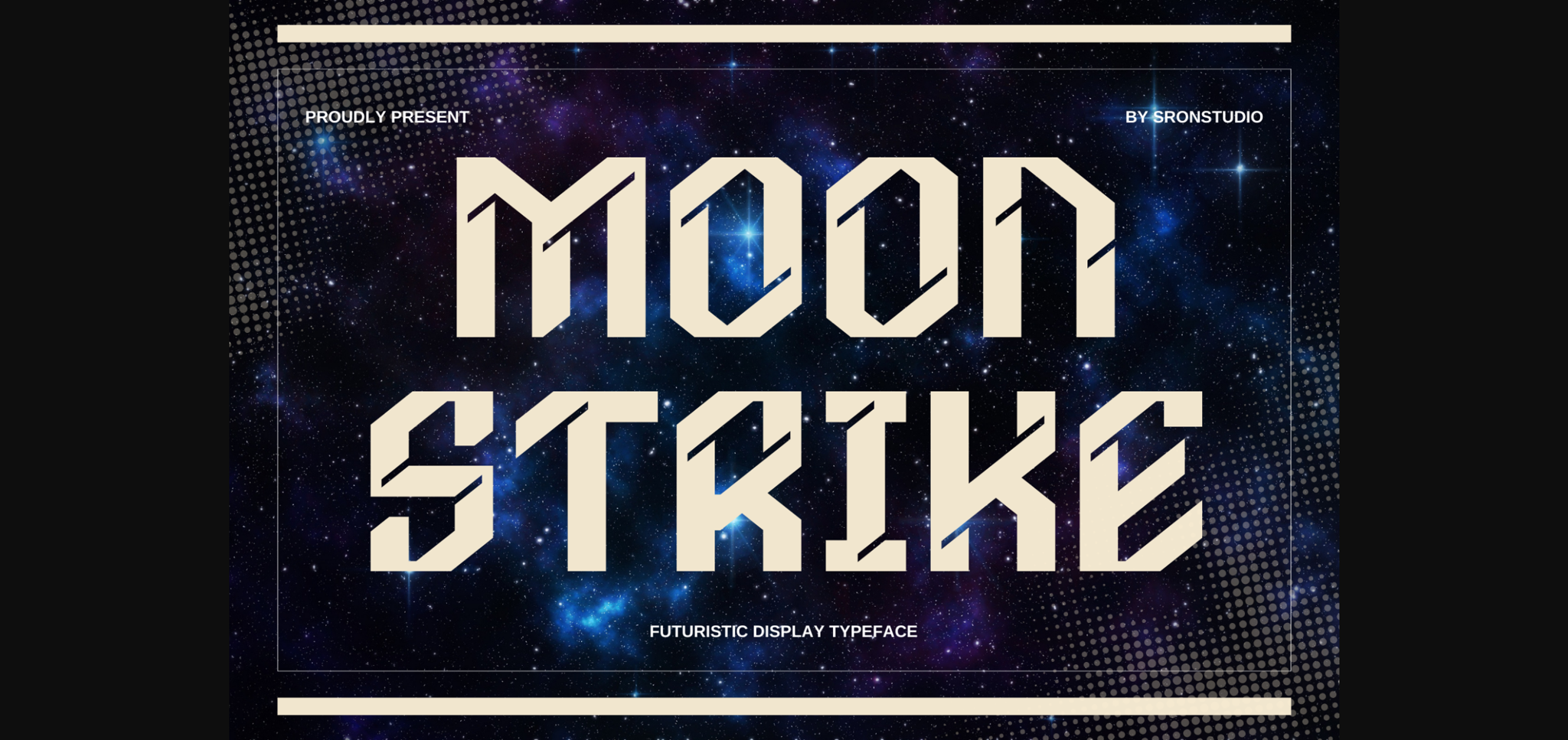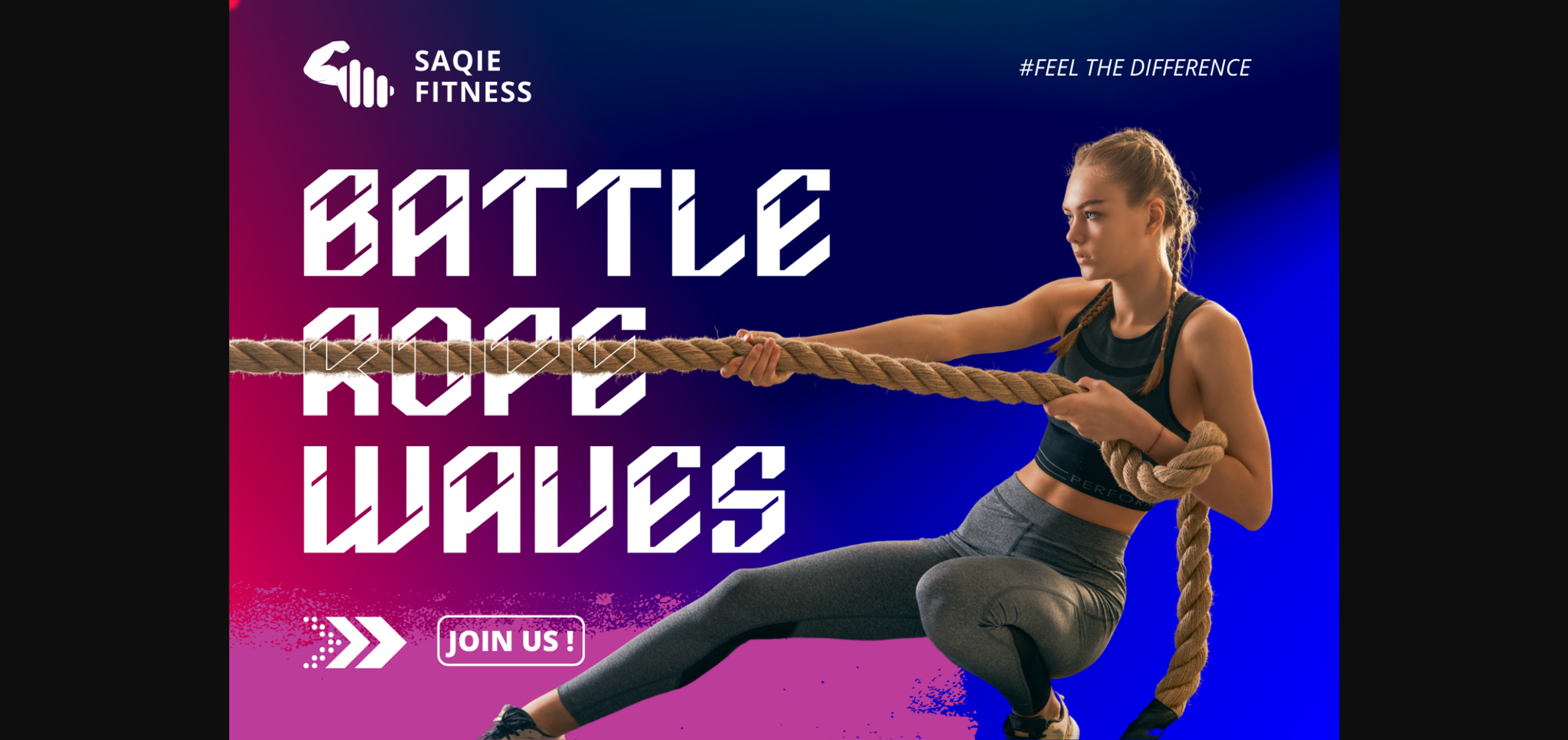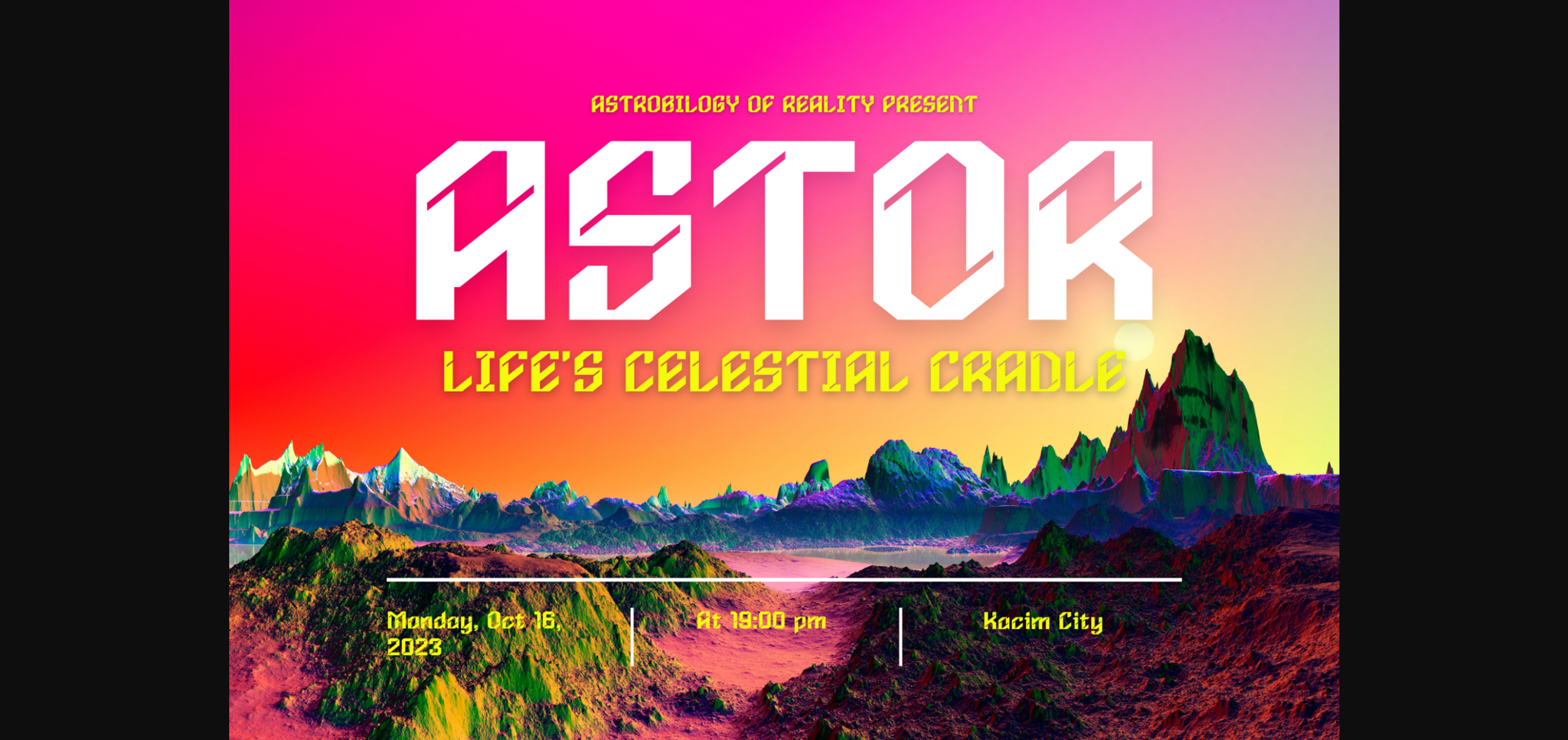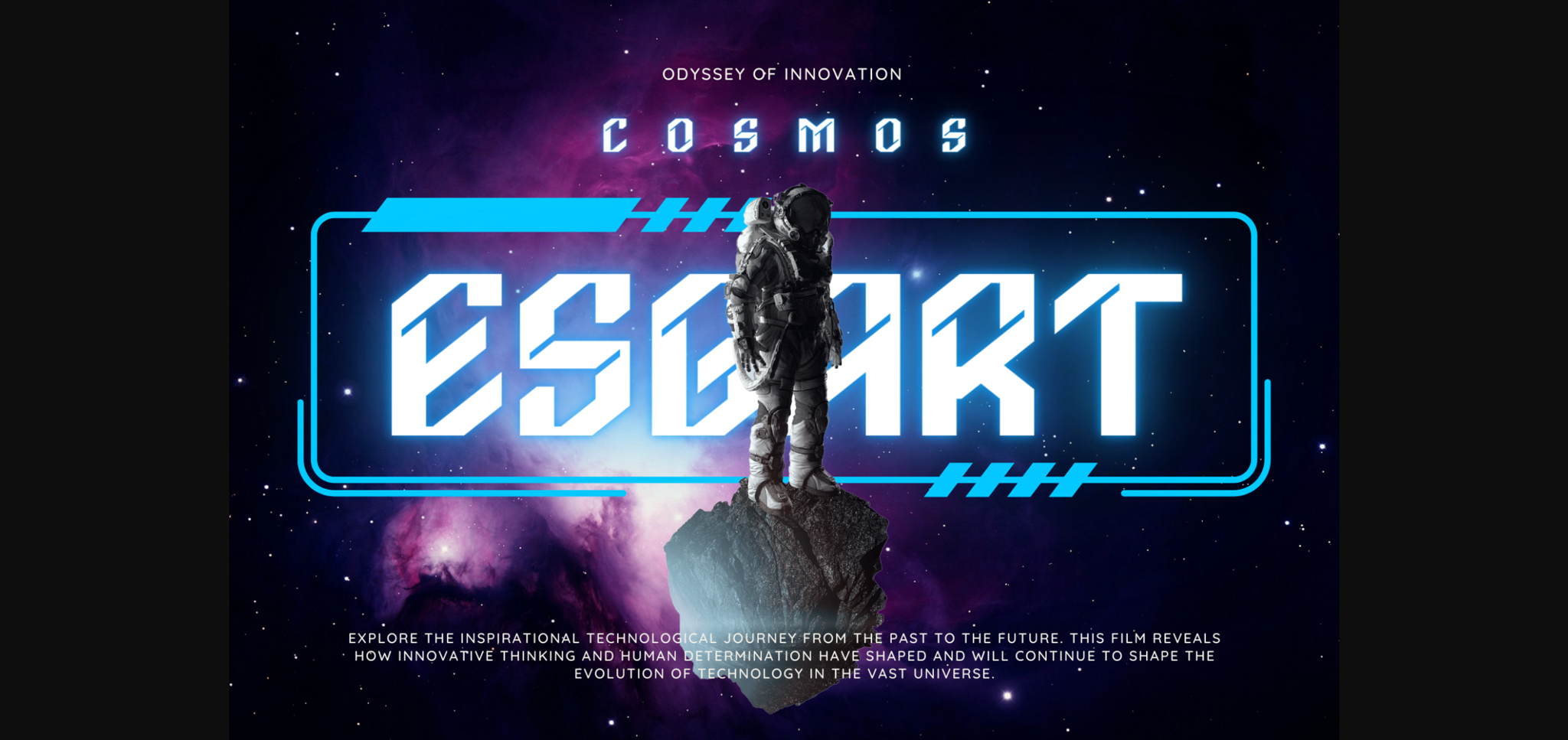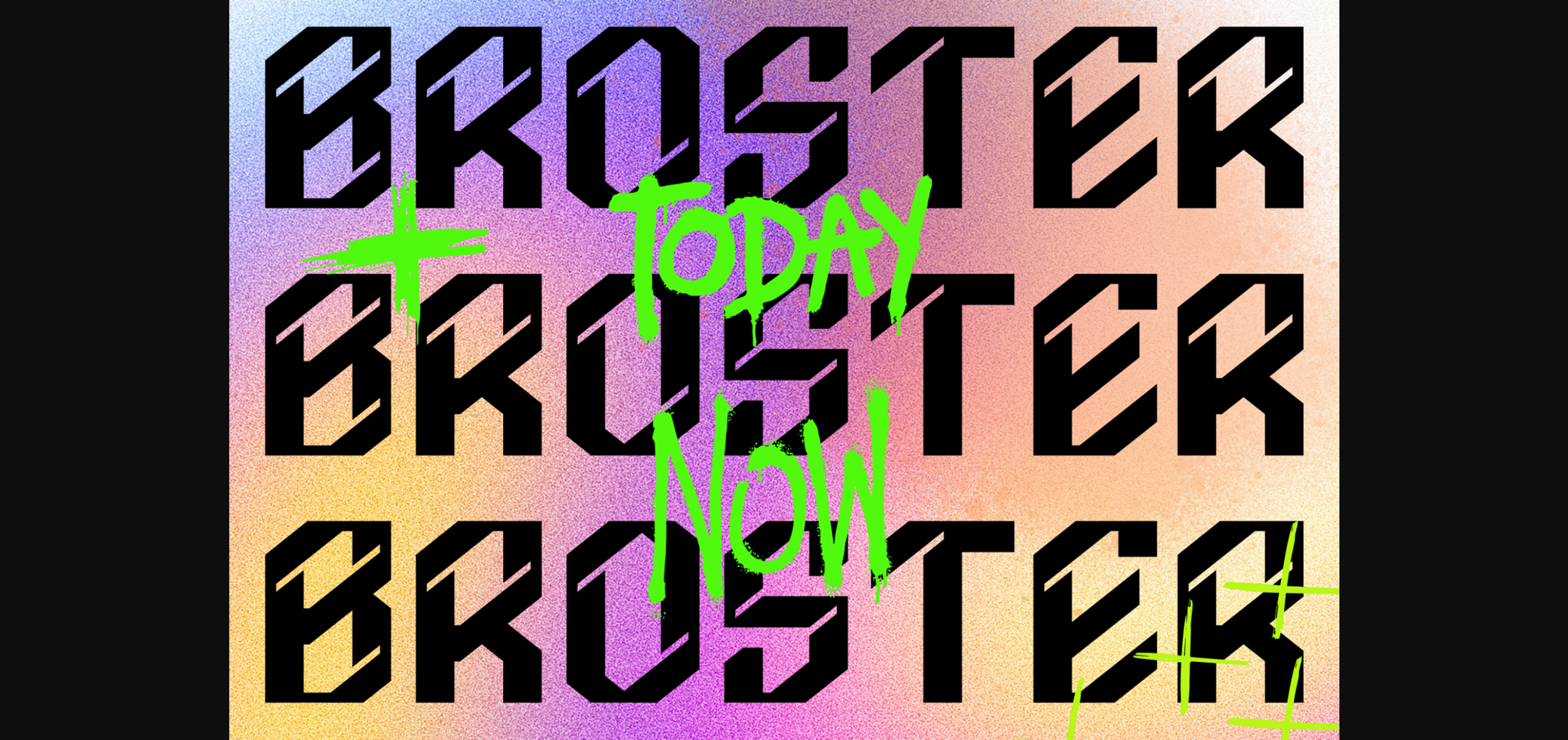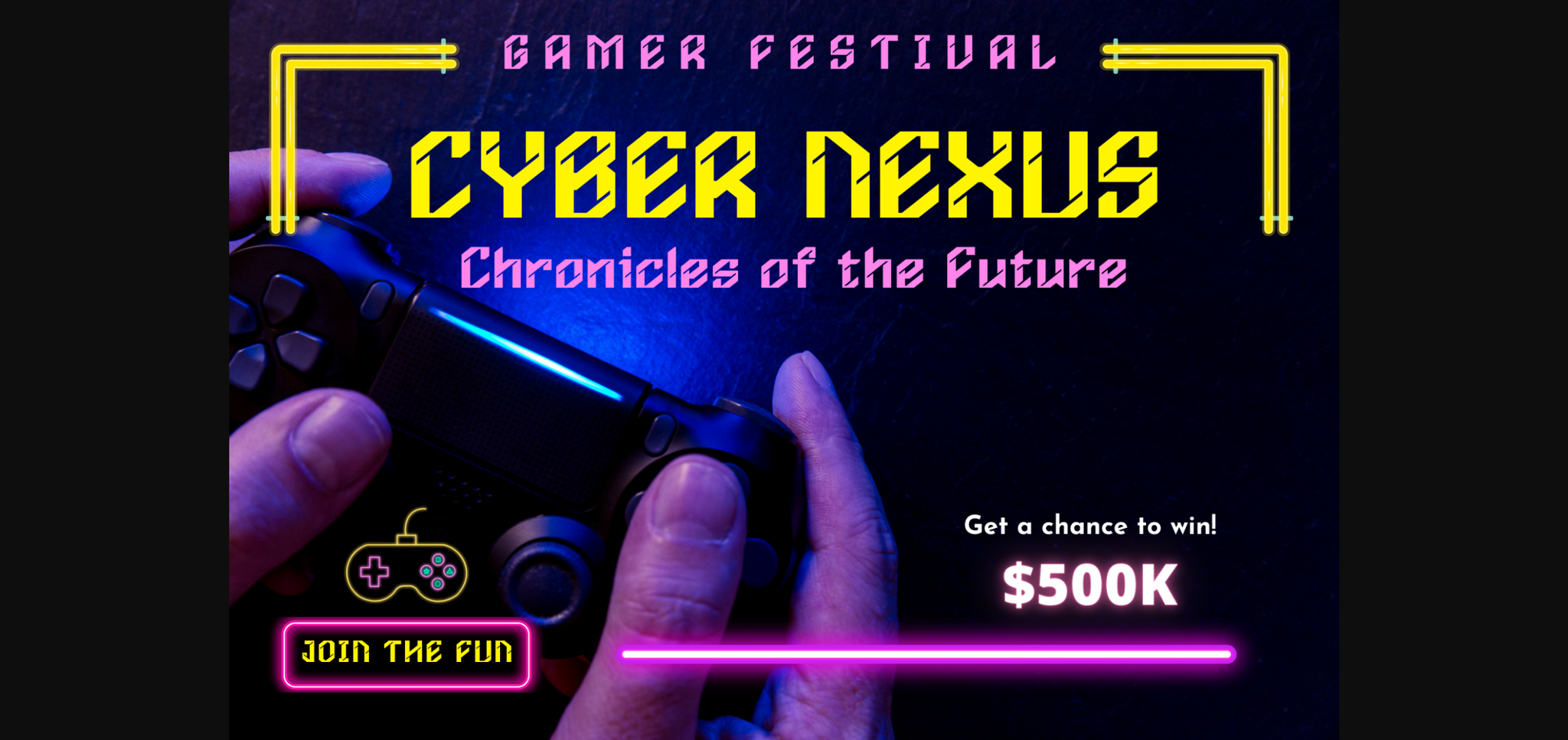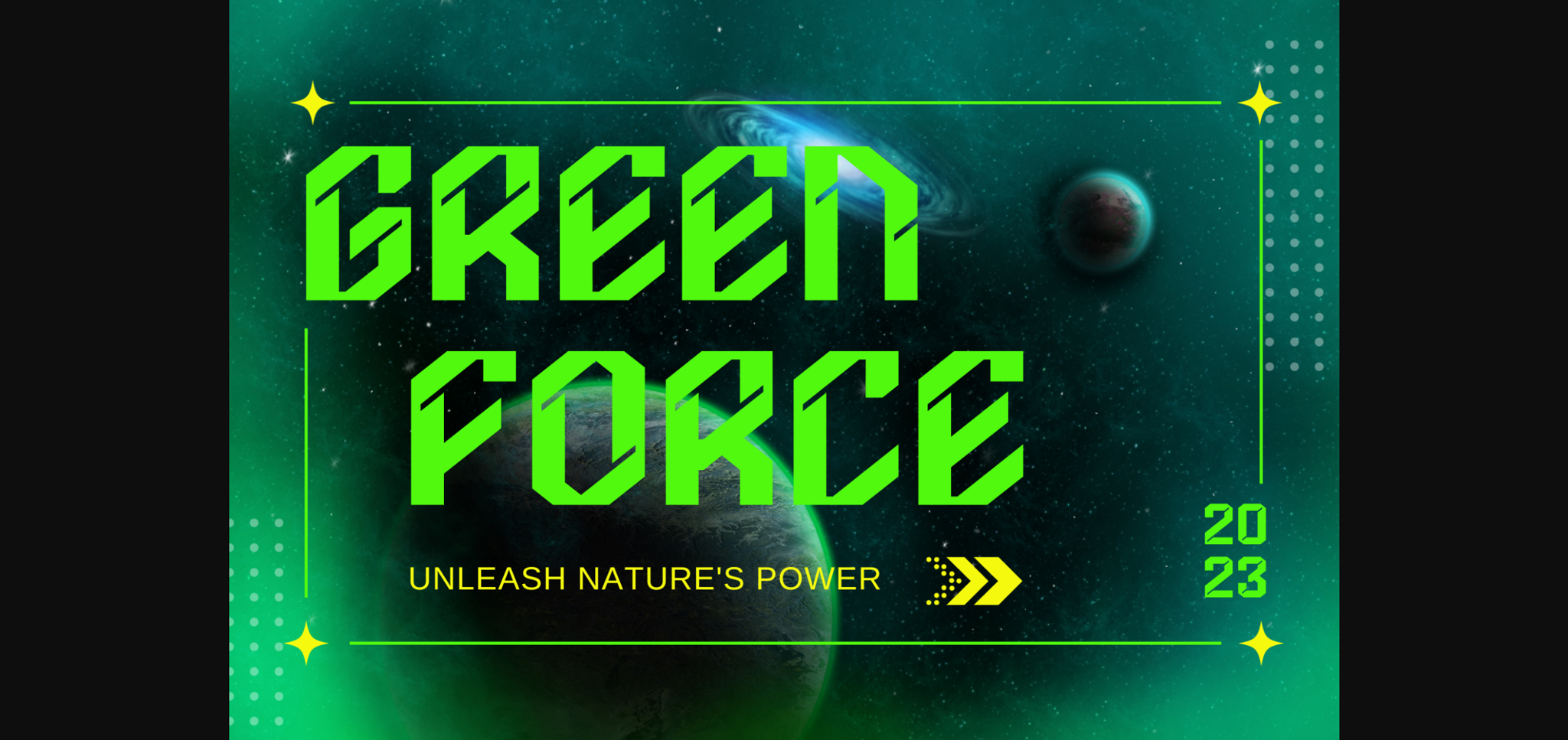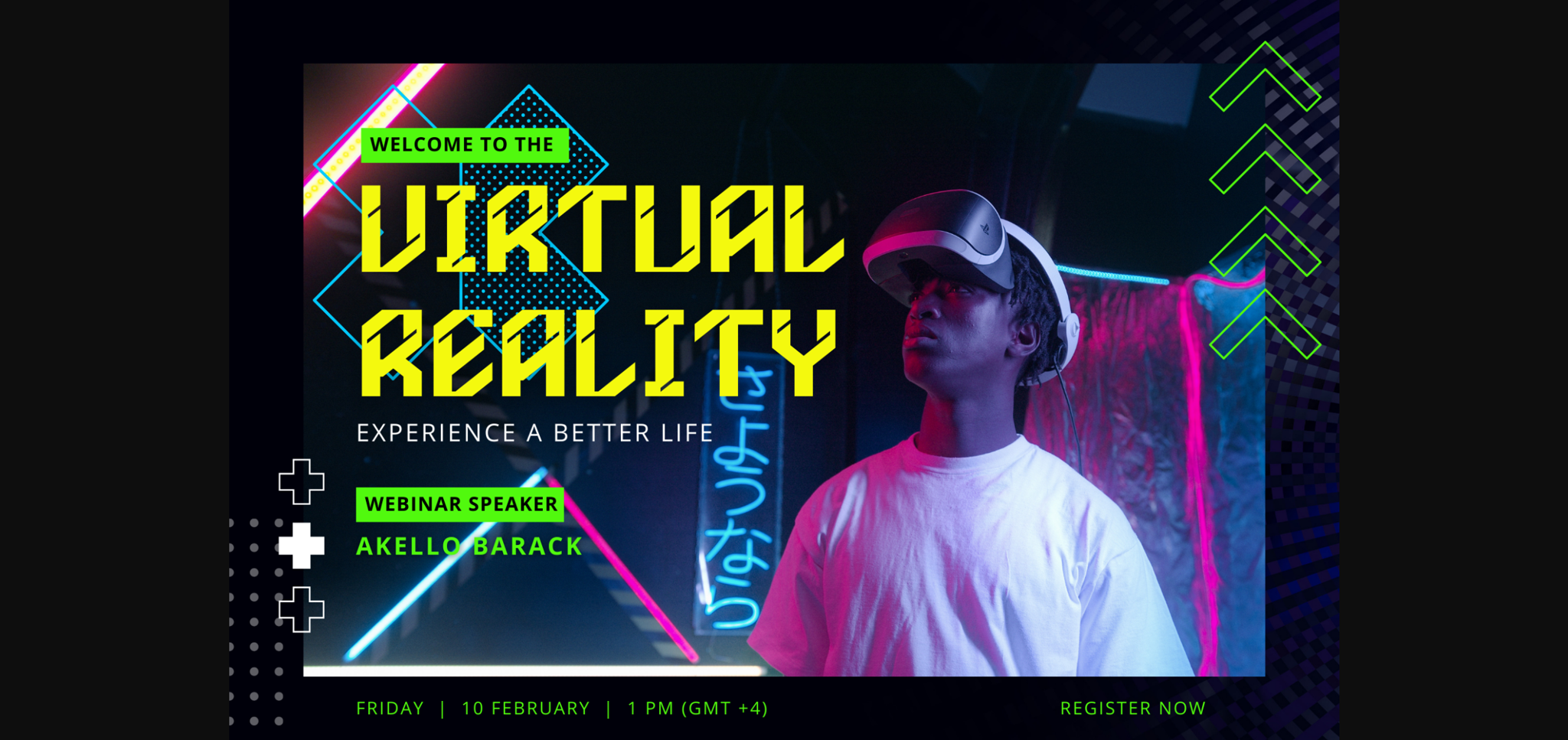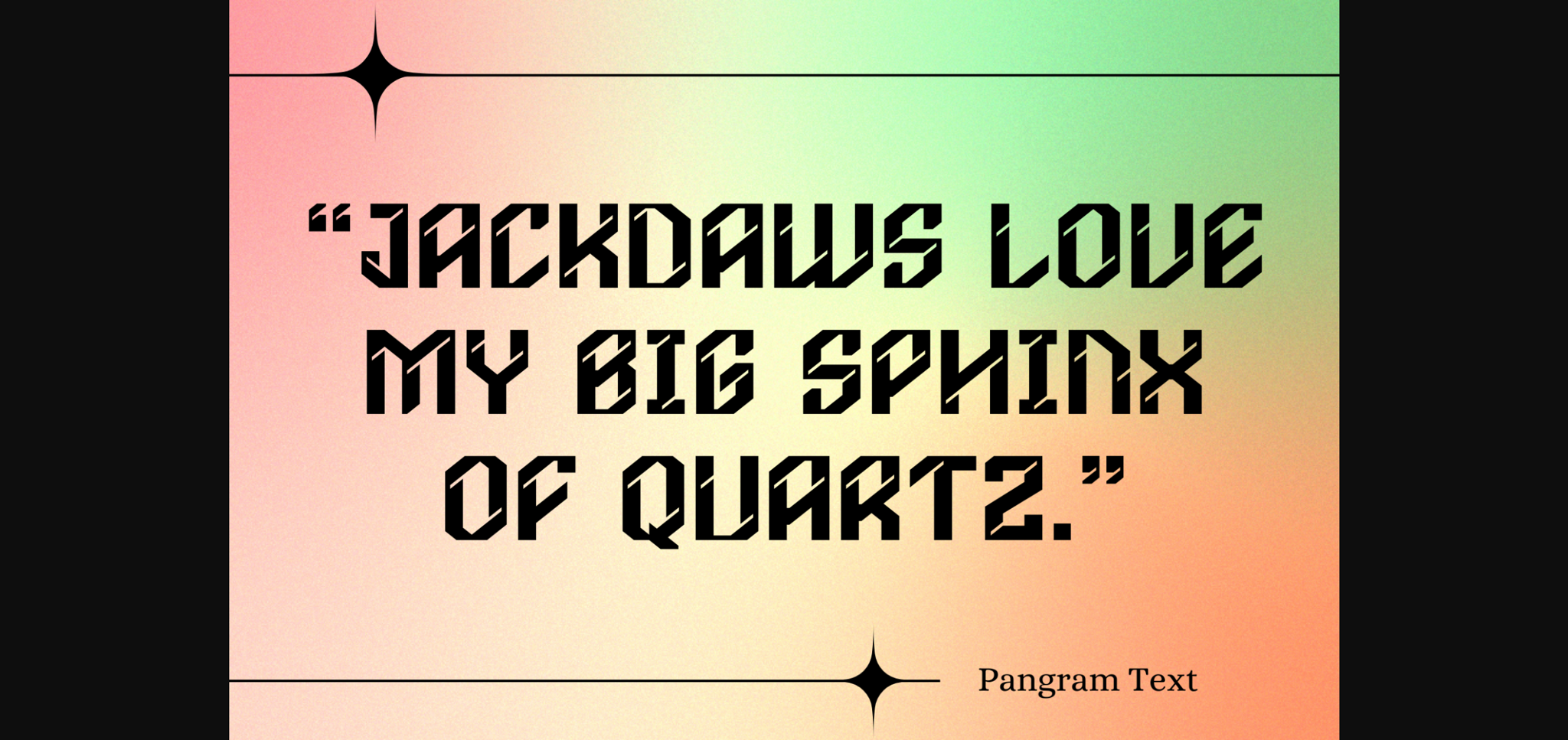
Mooonstrike Font
About Mooonstrike Font
“Moonstrike” is a font that embodies the futuristic essence of tech and space. With its sleek, modern letterforms, it’s the perfect choice for projects that demand a contemporary, high-tech look. Whether you’re designing for sci-fi themes, technology interfaces, or any project that requires a futuristic aesthetic, “Moonstrike” adds a touch of space-age sophistication to your designs.